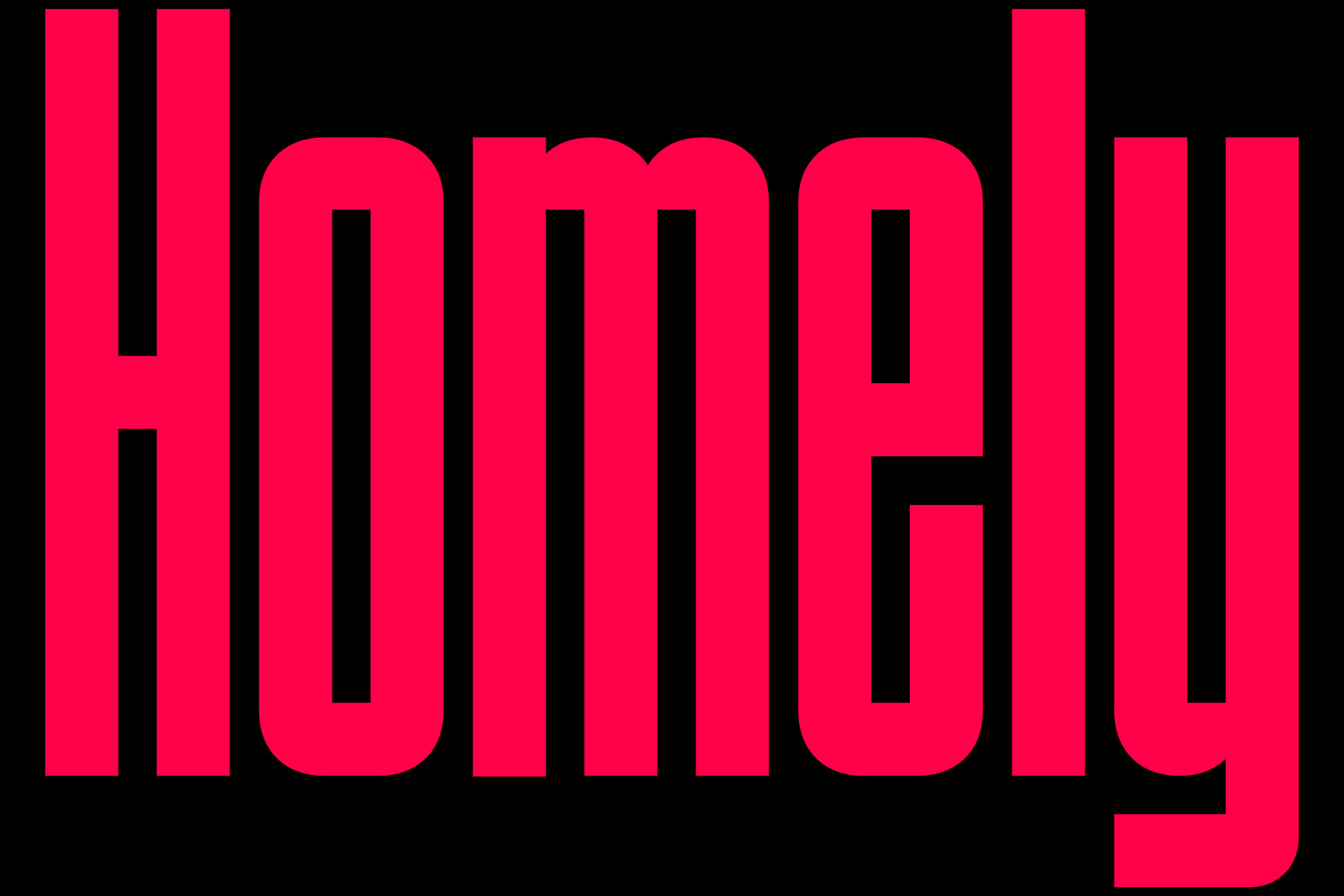
Homely | Condensed Font
Homely is a condensed type of font that has a different character from the previous condensed font, Homely has a strong but soft character, with a cheerful and fresh theme, supported by 2 choices of font types, Homely is able to answer your current needs who are designing something great.
Its weight is superior in posters, social media, headlines, magazine titles, clothing, large print formats - and wherever you want to see it. Inspired by the design styles that are currently popular, let's make your imagination come true with HOMELY.